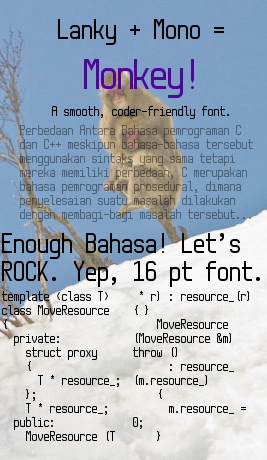
First try adding a sample... Here goes. Photo is from here http://www.flickr.com/photos/wildphotons/4445914061/ -- credit to wildphotons.
OK, I just submitted a little update to this font. Almost all of the Unicode box drawing characters from the U+2500 block are now available in the Cyrillic block of this font, at U+0400 (their order is the same, just 0x2100 positions earlier in the font). I hope that Fontstruct gets official support for the Unicode code ranges for punctuation, but until then this work-around should be fine for certain purposes.
@Elementalist. Nice! The box drawing range is available in FontStruct now. In expert mode, select "Unicode Letter Sets" from the menu (under "Advanced"). Then take a long scroll up the character set selector.
@meek, I tried that, but the menu will not scroll upward. It might be a trackpad problem on this laptop, a browser/plugin glitch (Chrome on Windows 7, not sure of the Flash version), or possibly a compatibility issue with FontStruct or a UI library FontStruct uses. It did seem odd that the top entry in the list was "Mandaic"...
@Elementalist. You have to use the little arrow at the top to scroll. Keys and scroll-wheel won't work I'm afraid. That select box could do with some work.
OK, box drawing characters are in the correct unicode range now, with complete (!) coverage of the range. I still have them in the Cyrillic block as well, because I don't feel like taking them all out and because I don't intend to implement Cyrillic characters (or any characters with accents; they extend the vertical space required by the font and that works against one of my design goals). @meek, it turns out I needed to tap the trackpad instead of clicking with the mouse button -- I had never encountered this trackpad bug before, but now I can use FontStruct more effectively. I don't think it is a FontStruct problem.
To save space when distributing the font, I removed the box drawing characters from the Cyrillic range. I also cloned this font and made it shorter -- have a look at Low Rider!
A few months ago, I edited the ampersand, as well as a few other little things. I feel like the new ampersand is a huge improvement.